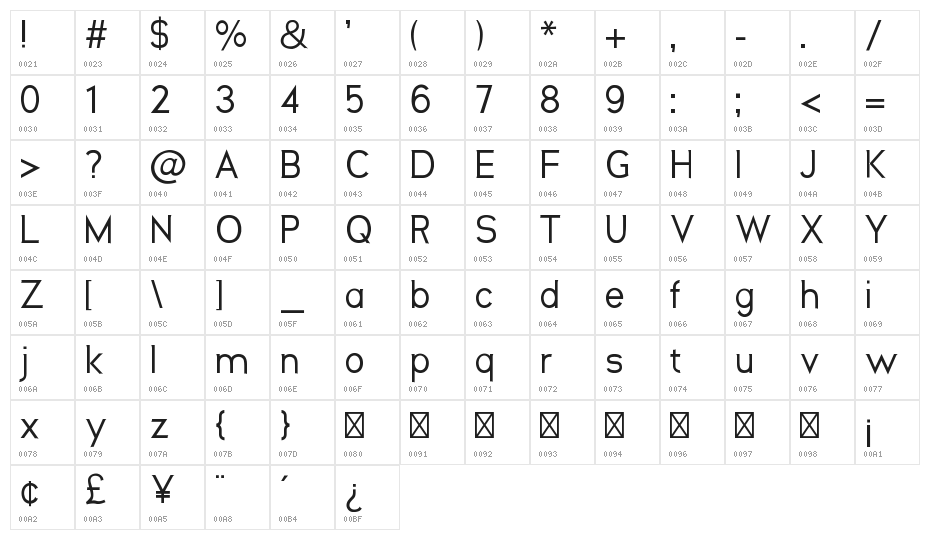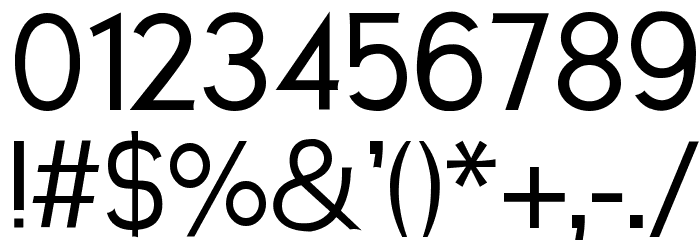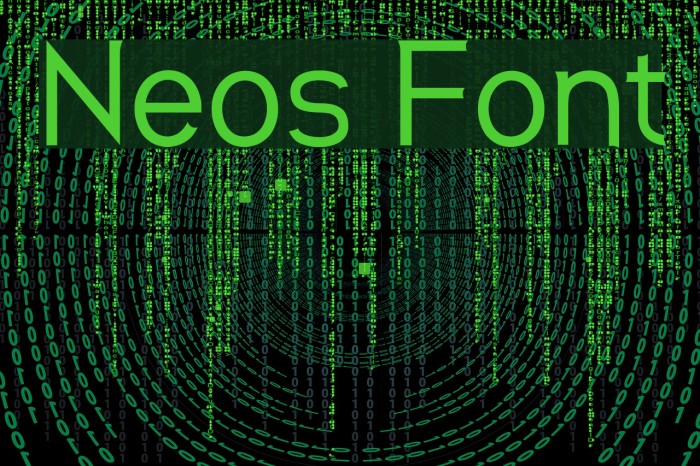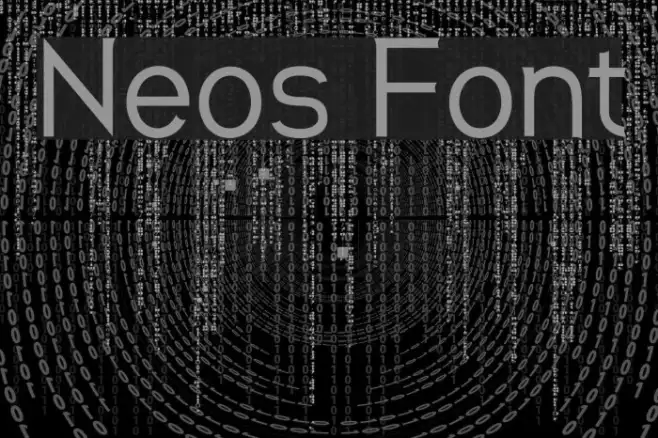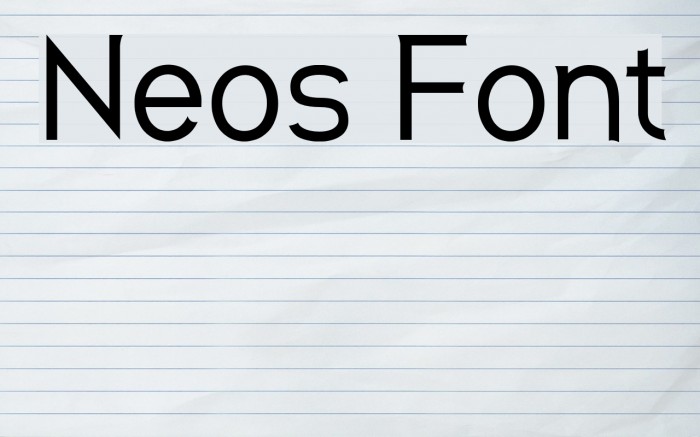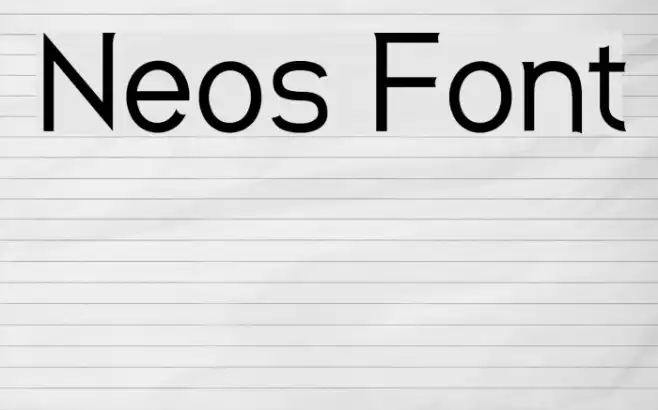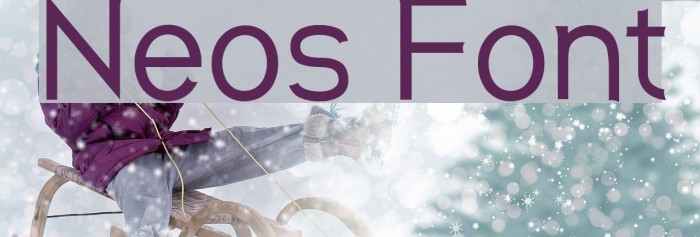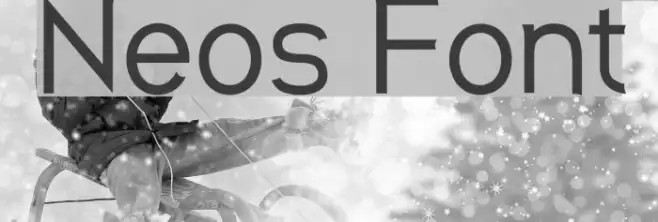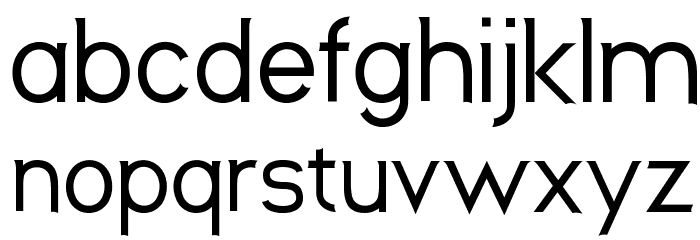
Neos Font
Neos Description
This font features a clean and modern sans-serif design, characterized by its geometric shapes and uniform stroke widths. The uppercase letters are bold and assertive, with a slightly condensed appearance that maintains readability. The lowercase letters are well-proportioned, offering a harmonious balance with the uppercase set. The numerals are clear and straightforward, making them suitable for both digital and print applications. Special characters are designed with the same attention to detail, ensuring consistency across all glyphs. This font's simplicity and clarity make it versatile for various design needs.
| Proposed Projects | Ideal for branding, web design, advertising, and editorial projects. |